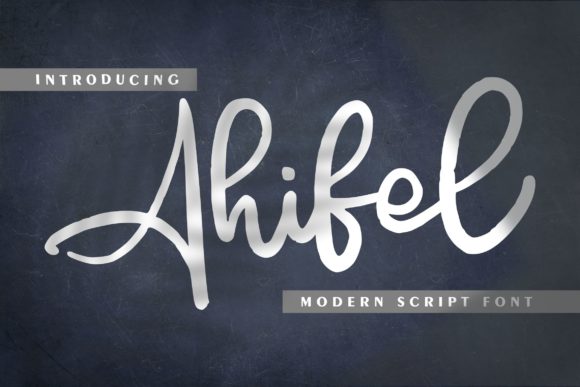
Welcome to the world of captivating visual communication with Ahifel Script! This extraordinary font, hailing from the brilliant mind of Vunira, is no ordinary script font. It's a masterpiece, meticulously crafted to turn your creative visions into stunning realities.
Dive into the boundless possibilities of Ahifel Script and unleash your imagination. With its elegant curves and graceful lines, this font adds a touch of charm and sophistication to any design project. Its versatility extends beyond imagination, allowing you to effortlessly create everything from logos and branding to invitations and personalized quotes.
Step into the realm of visual storytelling and let Ahifel Script transport your audience to a world of inspiration. Its organic flow lends an air of elegance to wedding invitations, making them feel both personal and heartfelt. Design logos that exude professionalism and creativity, or fashion captivating social media posts that are sure to turn heads.
Ahifel Script isn't just a font; it's an experience. It's a chance to elevate your designs, to make a statement, and to create a lasting impression. With its ability to transform ordinary words into captivating works of art, Ahifel Script is the key to unlocking your creative potential.
So, embark on this creative adventure today and let Ahifel Script guide you to new heights of design brilliance.